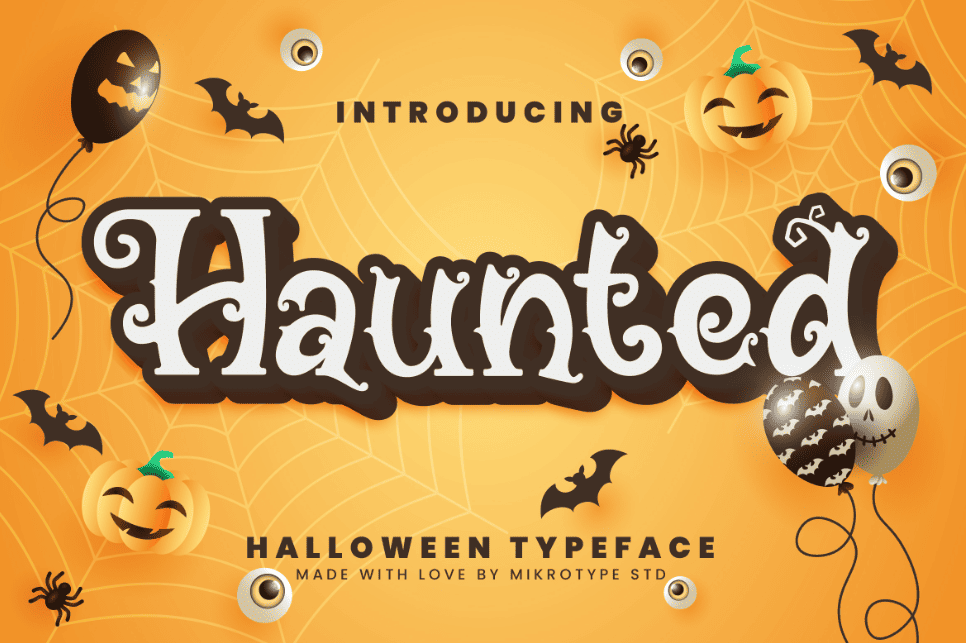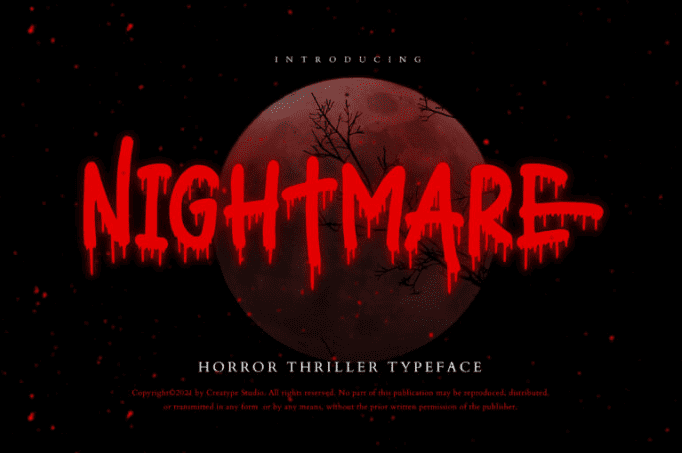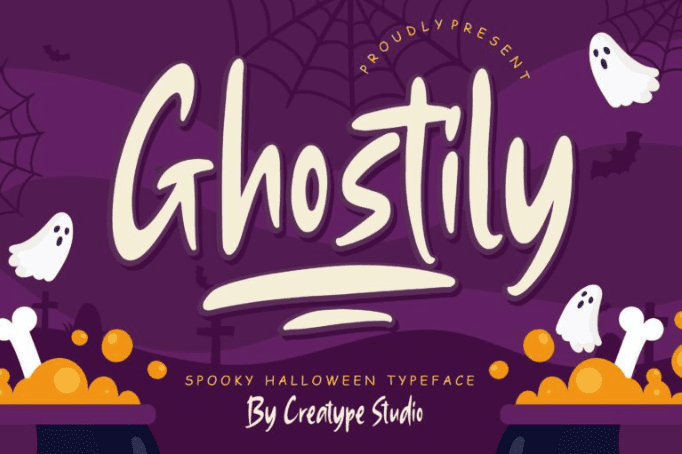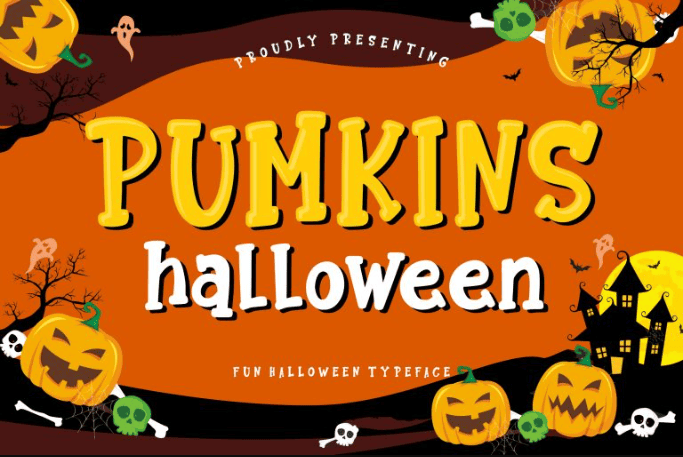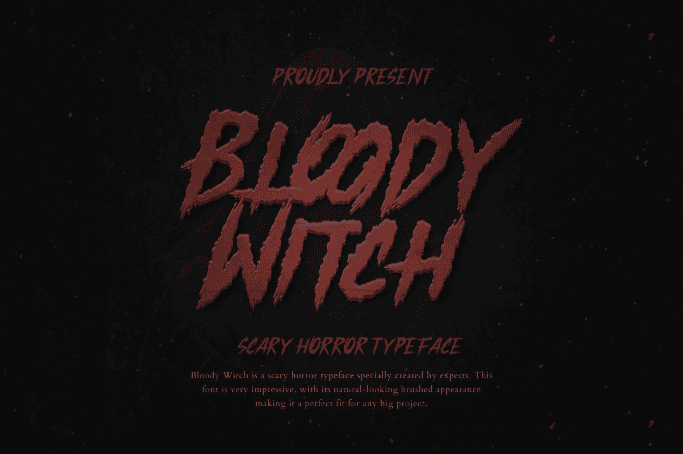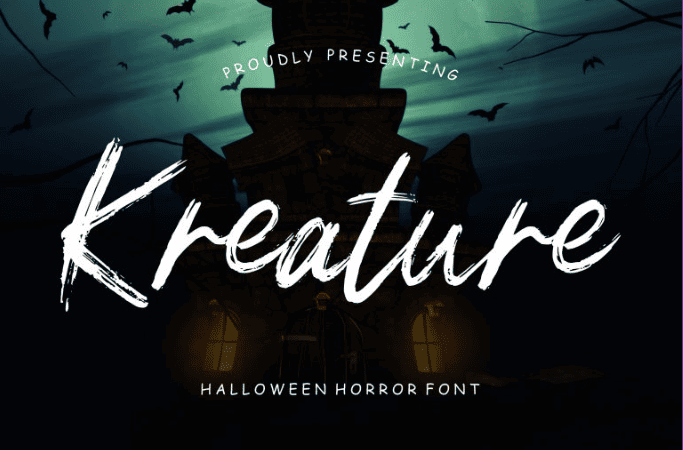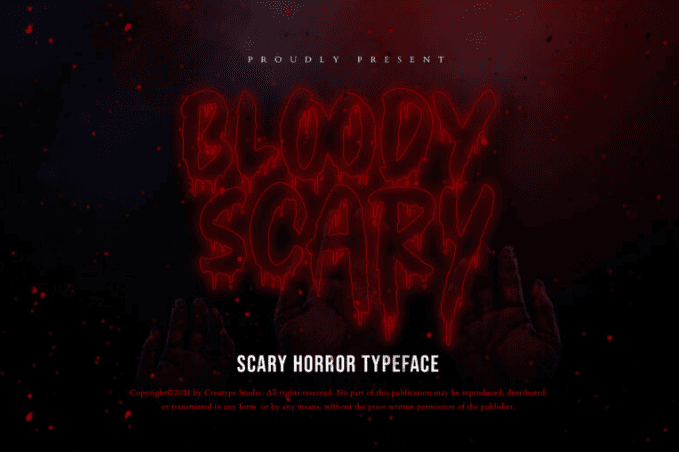
8 Creepy-Cool Halloween Fonts to Haunt Your Next Project
October’s chill is in the air, and your designs deserve a costume too. Halloween fonts can transform even the simplest text into something haunting, fun, or deliciously eerie. Whether you’re planning party invites or spooky posters, these fonts are your shortcut to an instantly unforgettable Halloween aesthetic.
Key Takeaways:
• Horror-style typography relies on texture, distortion, and contrast to evoke emotion.
• Experimenting with typefaces helps create unique, unforgettable Halloween visuals.
• The right Halloween font can instantly set the tone, from creepy and playful to hauntingly elegant.
• Balance readability and atmosphere for the most effective spooky design with designated Halloween fonts.
8 Best Halloween Fonts to Spook Up Your Designs
Finding the best Halloween font is like picking the perfect costume; it sets the whole mood. Whether you want something eerie, haunting, or playfully unsettling, the right typeface can transform your design from simple to spellbinding. Let’s explore some fonts that will make your words look wickedly alive.
1. Haunted
Haunted is a display font that can be perfectly paired with the Halloween pumpkin aesthetic. This font cleverly alters its serif component with ornaments, maintaining readability with style.
Mimicking the swirly, yet stiff pumpkin stem, Haunted adds a unique character to its bold letters. Haunted is available in both cases, ligatures, and even alternates. So, you can deliver a highly ornamented typography matching this year’s Halloween theme.
2. Frighted
Frighted
Frighted takes inspiration from the haunted forest aesthetics. It has wood-like letterforms, capturing the eerie Halloween vibes with its bold and uneven orientation. This font has a unique letter border, allowing you to maintain its readability despite the erratic background you might add.
Available in uppercase and lowercase letters, along with stylish alternates and ligatures, Frighted can be your designated font for Halloween. Whether your sentence is long or short, this font can deliver your frightening message with ease.
3. Nightmare
Nightmare
Nightmare is among the best Halloween fonts, displaying the bloody, horror visuals. Even though it looks scary at first glance, Nightmare is mixed with a playful essence. This Font uses rounded monoline letters.
Nightmare is made to be the center of your design, offering only uppercase letters. The font keeps its horror vibes by combining grim colors, drip effects, and unsettling letter placements.
4. Ghostliy
Ghostliy
Ghostily is perfect for adding a more playful and light typography to your Halloween designs. This font opts for elongated letters and condensed kernings. Ghostily has a prominent thick-to-thin stroke, allowing for better legibility.
With a font like Ghostily, you can create a fun and energetic atmosphere, bringing new light to Halloween festivities. Ghostily is available in upper case and lowercase letters, so you can really scream out certain words in your design.
5. Pumkins Halloween
Pumkins Halloween
Pumkins Halloween is a pop typeface with an uplifting vibe for the Halloween season. Combining thick, balloon-like letters with a serif font style, this font perfectly belongs with the good Halloween fonts for commercial designs.
With uppercase and lowercase letters, you can make a complete and consistent design throughout the whole setting. But, Pumpkins Halloween is made for the center space, perfect for capturing attention and the scary season.
6. Bloody Witch
Bloody Witch
Unlike the other Halloween fonts, Bloody Witch showcases unforgiving, scary aesthetics. Focusing on capturing a terrifying visual, Bloody Witch uses jagged strokes and quick movements.
With caps-only letters, Bloody Witch also offers alternates and ligatures to deliver your scary message with style. If it’s the dark, eerie, and horror vibes that you’re looking for, then Bloody Witch is the font for you.
7. Kreature
Kreature
Kreature is a versatile font Halloween that can represent horror and agility. When combined with bright colors and fun words, it can be a bright, bold typography. But, when combined with dark and spaced designs, it can represent silence and mystery.
Kreature can achieve such a feat because of its cursive brush letterforms. With Kreature in your font collection, creating design that never gets boring becomes easy.
8. Bloody Scary
Bloody Scary
As the name suggests, Bloody Scary is a horror font with bloody drips from each letter. It has a thick stroke, mimicking the realistic bloody handwriting, although with a much cleaner profile.